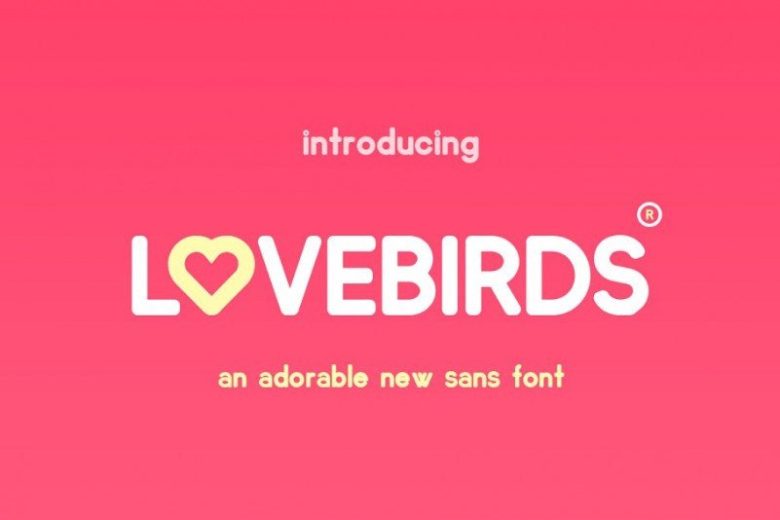
Lovebirds Sans Font
Add style to your designs with Lovebirds Font, a modern typeface with sweeping, bold letterforms and clean lines. It is designed and shared by Salt & Pepper Designs.
Lovebirds Sans Font is a fabulous new font that is easy to pair with others and yet strong enough to stand alone! For all of you lovers out there and if you’re not in love, but love fonts.. this one’s for you too!